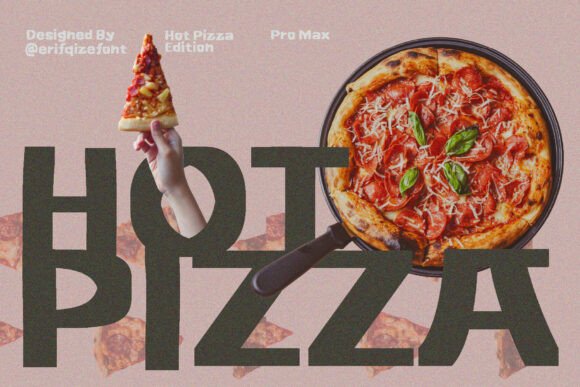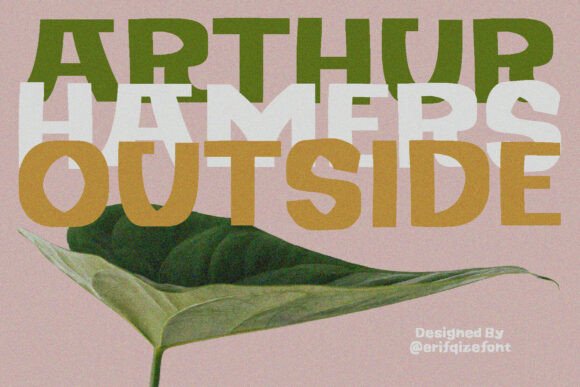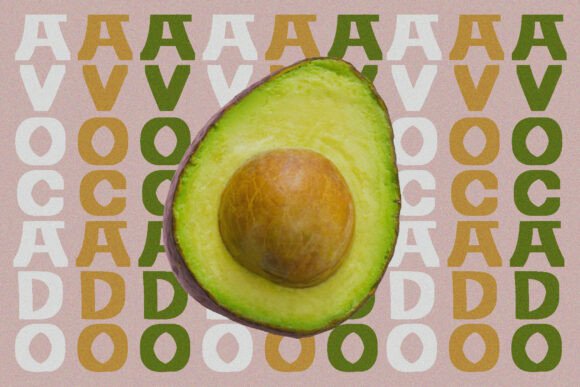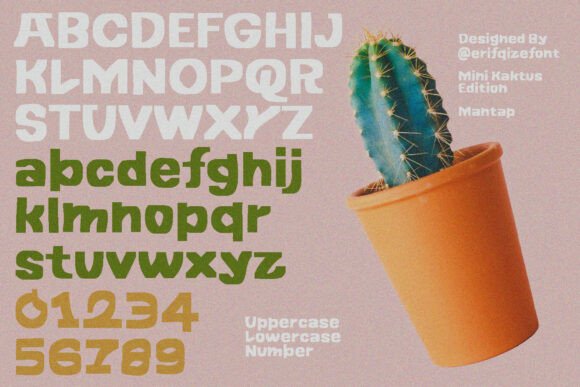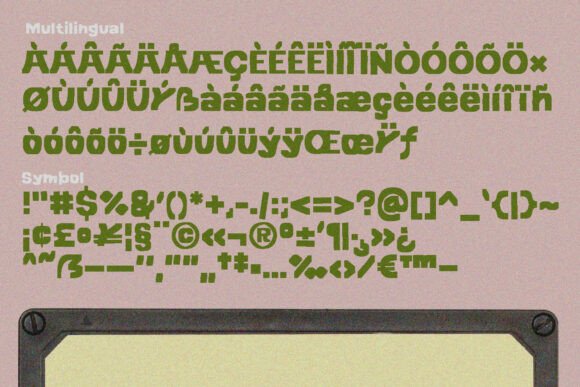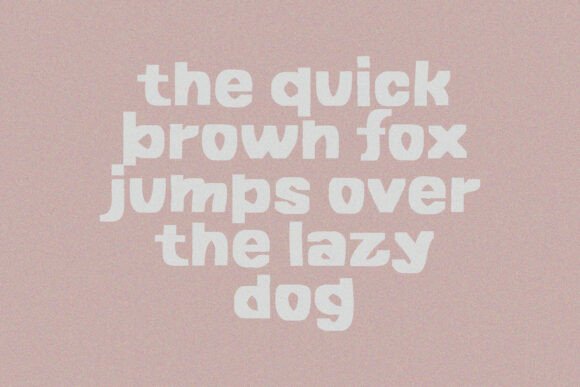
Introduction to Screo Human Font Font
Fonts play a crucial role in design, and the Screo Human Font font is a typeface that brings both character and versatility to any project. Whether you’re working on a branding project, a website, or a print design, the Screo Human Font font offers a unique style that can elevate your work.
Screo Human is a bold modern display font inspired by organic forms and human-centered design.
With its strong shapes, smooth curves, and slightly handcrafted character, this typeface blends contemporary structure with a natural, approachable feel Designed for expressive visual communication, Screo Human works perfectly for branding, posters, packaging, lifestyle products, food visuals, editorial layouts, and social media graphics.
Key Features of Screo Human Font Font
Why Choose Screo Human Font Font?
The Screo Human Font font is more than just a typeface – it’s a design tool that helps you communicate your message with style and clarity. Its unique character set and versatile design make it suitable for a wide range of applications, from elegant invitations to bold headlines.
With its carefully crafted letterforms and balanced proportions, the Screo Human Font font ensures readability and visual appeal across all mediums.
What makes Screo Human Font font special?
The Screo Human Font font stands out with its unique design, exceptional readability, and versatility across various design applications.